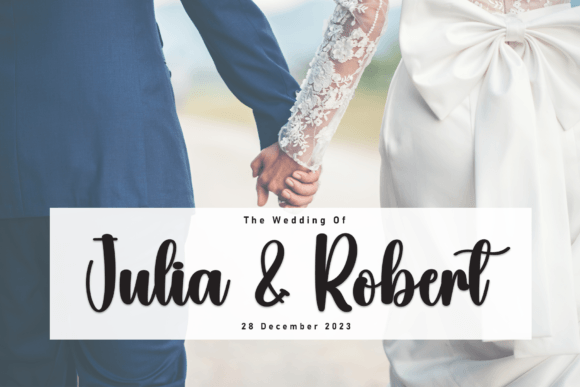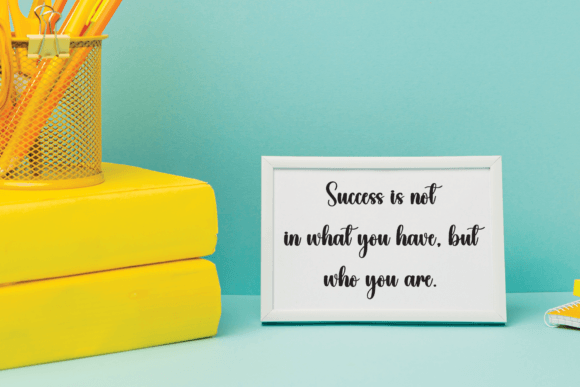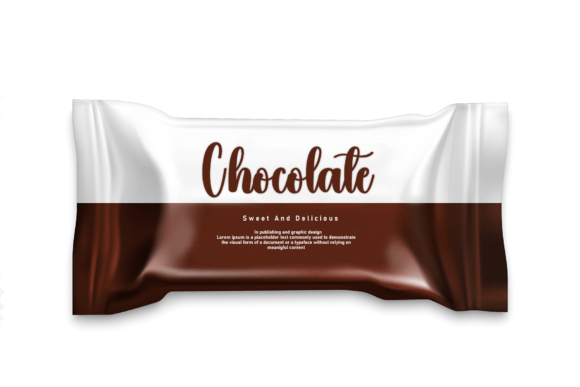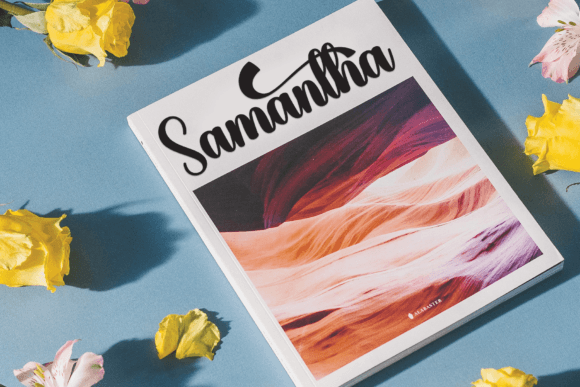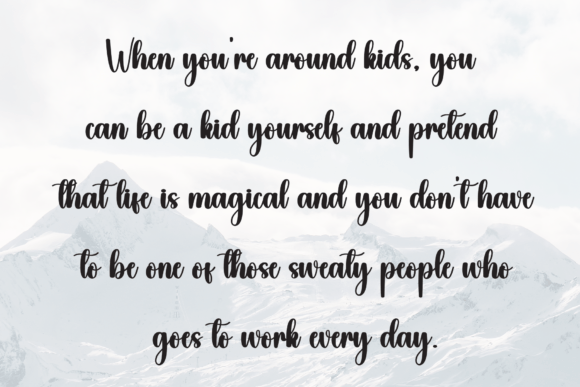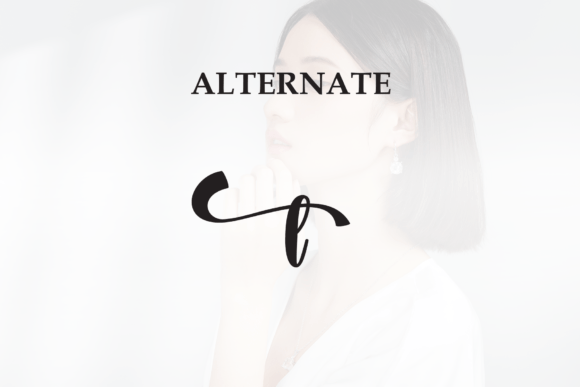
Introducing Beauty Font: The Sweet and Friendly Handwritten Font
Are you a designer, crafter, or DIY enthusiast looking for a font that can add a touch of warmth and personality to your projects? Look no further than Beauty Font, a sweet and friendly handwritten font that’s perfect for a wide range of designs. With its natural and unique style, Beauty Font is incredibly versatile and can be used in various creative projects, from digital designs to print materials.
The Charm of Beauty Font
Beauty Font is a handwritten font that’s designed to evoke a sense of warmth, comfort, and approachability. Its natural and fluid strokes give it a unique and organic feel that’s perfect for designs that require a personal touch. The font’s sweet and friendly style makes it ideal for projects that need to convey a sense of innocence, playfulness, or sophistication.
What Makes Beauty Font So Versatile?
The versatility of Beauty Font lies in its ability to adapt to different design styles and themes. Whether you’re creating a:
- Digital invitation or greeting card, Beauty Font can add a touch of warmth and personality to your design.
- Social media graphic or blog post, the font’s friendly style can help engage your audience and convey your message.
- Branding or packaging design, Beauty Font can help create a unique and memorable visual identity for your product or service.
- Craft or DIY project, the font’s handmade feel can add a personal touch to your creation.
The only limit to using Beauty Font is your imagination! With its flexibility and charm, you can experiment with different design ideas and create something truly unique.
Key Features of Beauty Font
Here are some key features that make Beauty Font an excellent choice for designers and crafters:
- Handwritten style: Beauty Font has a natural, handwritten style that’s perfect for designs that require a personal touch.
- Unique and distinctive: The font’s unique strokes and curves make it stand out from other fonts and add a touch of personality to your designs.
- Highly legible: Despite its handwritten style, Beauty Font is highly legible and easy to read, making it perfect for body text and headings.
- Flexible and adaptable: Beauty Font can be used in a wide range of designs, from digital designs to print materials, and can adapt to different styles and themes.
Tips for Using Beauty Font
Here are some tips for using Beauty Font in your designs:
- Experiment with different sizes and colors: Beauty Font looks great in different sizes and colors, so don’t be afraid to experiment and find the perfect combination for your design.
- Pair it with other fonts: Beauty Font can be paired with other fonts to create a unique and interesting contrast. Try pairing it with a bold font for headings or a sans-serif font for body text.
- Add some texture or patterns: Beauty Font looks great with texture or patterns, so consider adding some subtle effects to give your design some extra depth and interest.
Beauty Font is a sweet and friendly handwritten font that’s perfect for designers, crafters, and DIY enthusiasts. With its natural and unique style, it’s incredibly versatile and can be used in a wide range of designs. Whether you’re creating a digital design, print material, or craft project, Beauty Font is sure to add a touch of warmth and personality to your creation. So why not give it a try and see what amazing designs you can create?